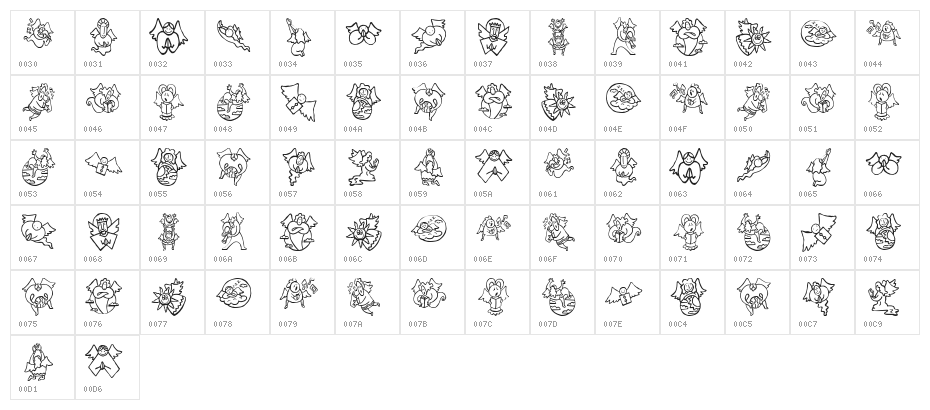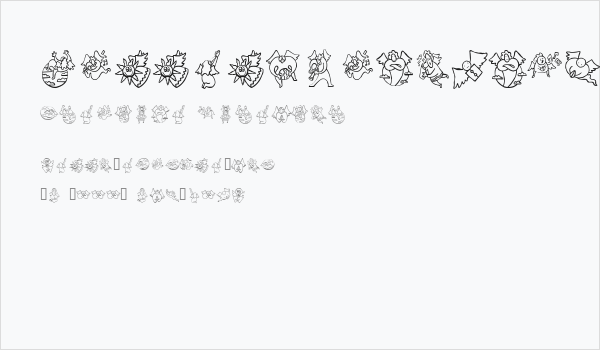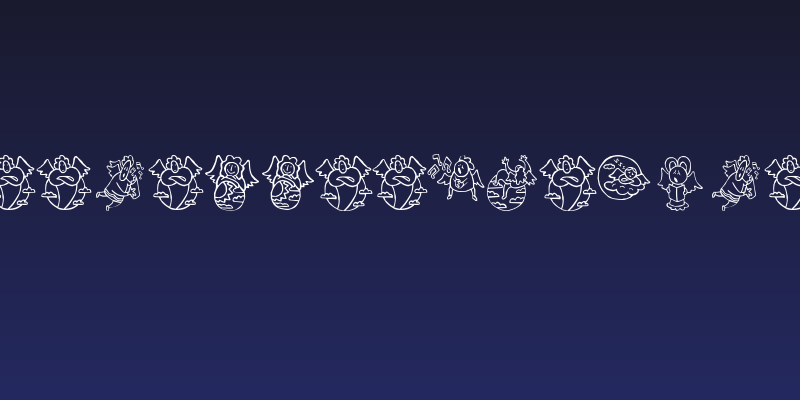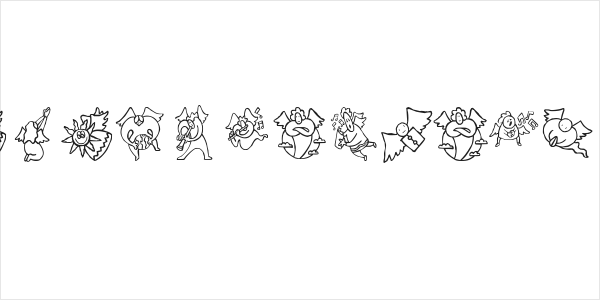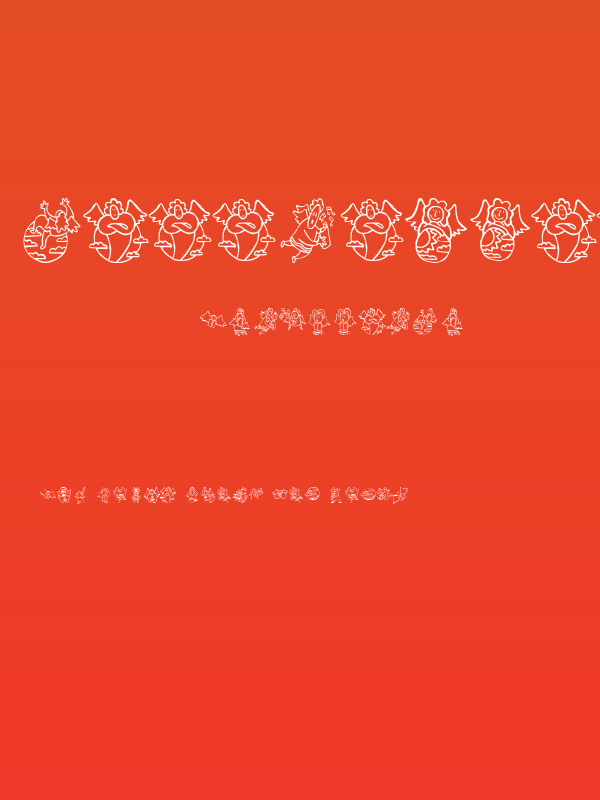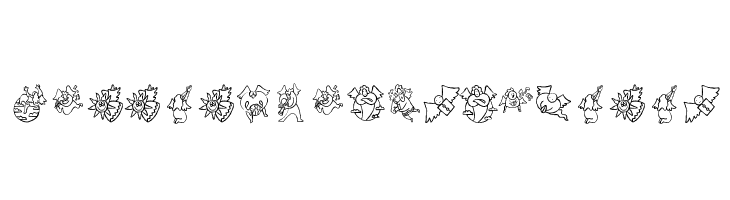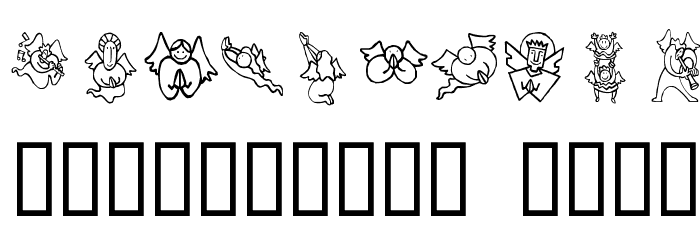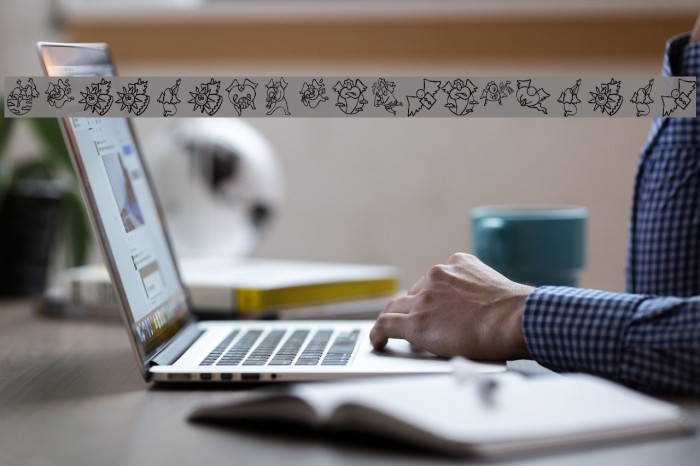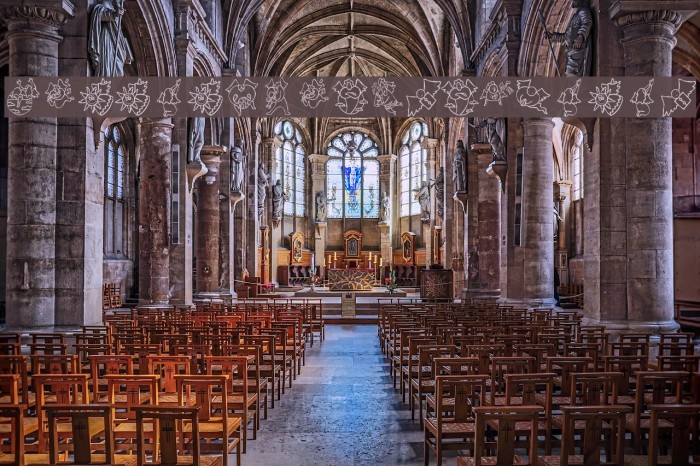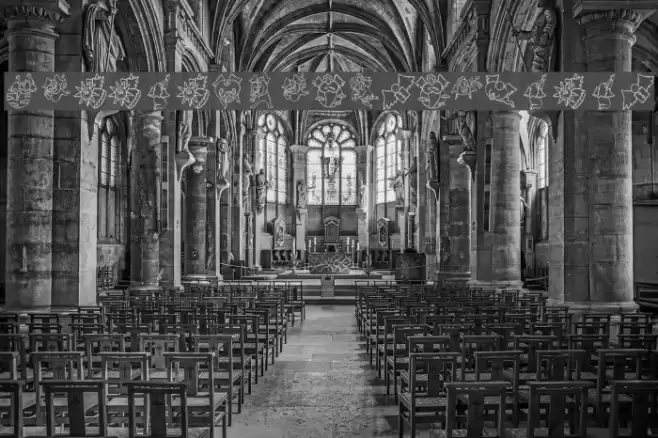
HallelujaLosAngeles Font
HallelujaLosAngeles Description
This is not a traditional font but rather a collection of whimsical, cartoon-like illustrations. Each character is represented by a unique, playful drawing, often featuring angelic or fantastical themes. The designs are intricate and detailed, with each character having its own distinct personality and style. The illustrations are outlined in black, giving them a bold appearance, while the interiors are left unfilled, creating a stark contrast against the background. This set is more suited for decorative purposes rather than textual communication.
| Use Case | Decorative illustrations, not suitable for text. |
| Proposed Projects | Ideal for children's book illustrations, greeting cards, or playful branding materials. |